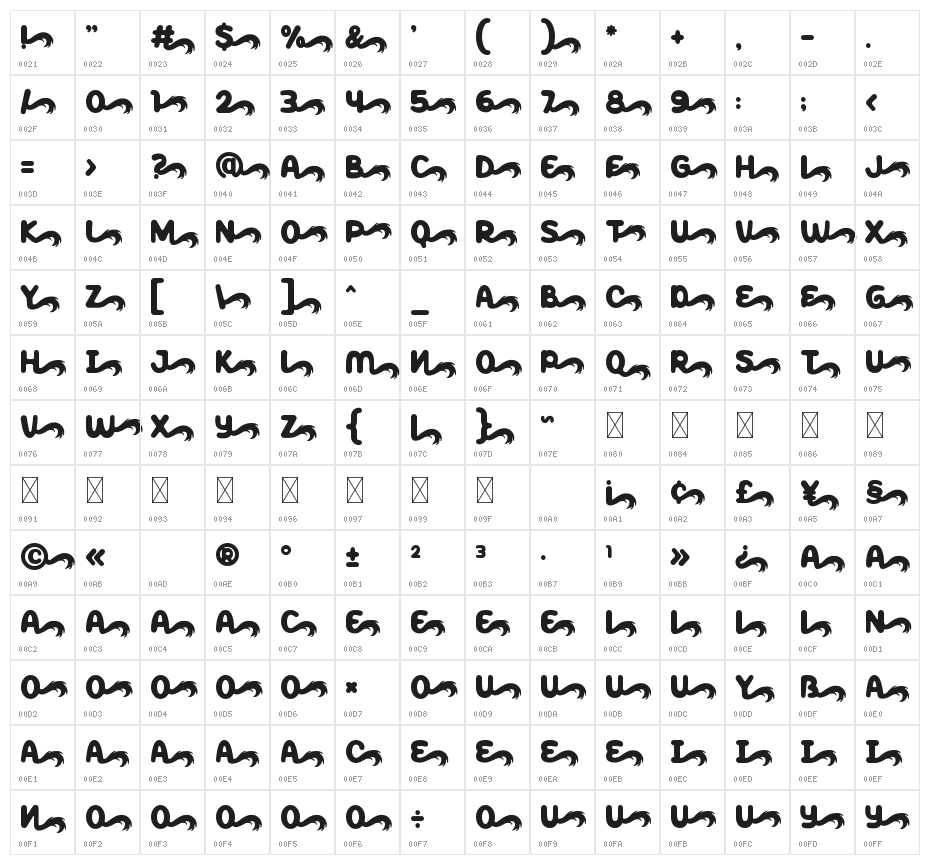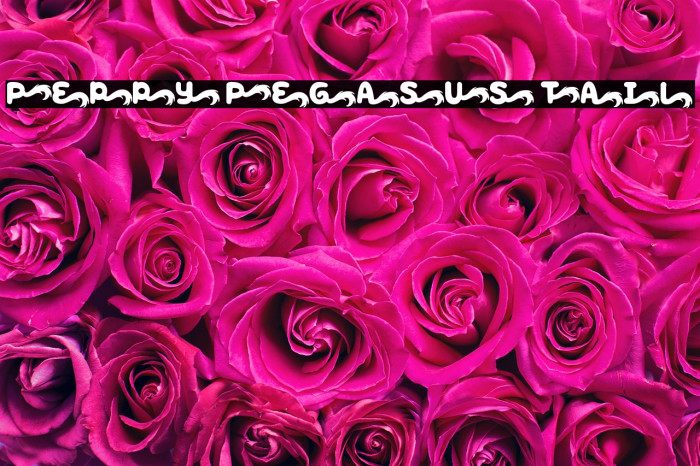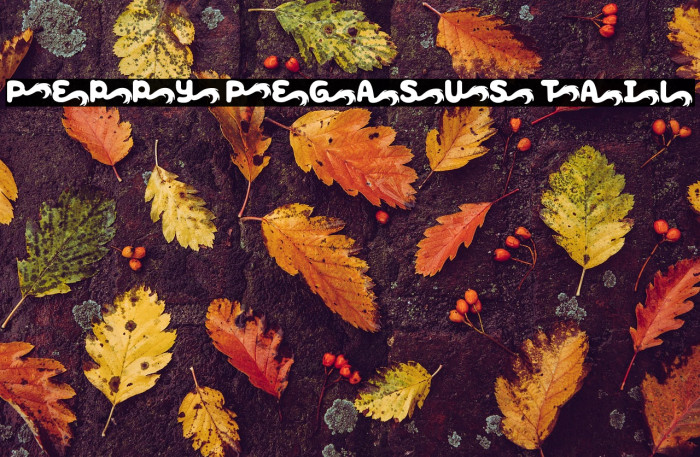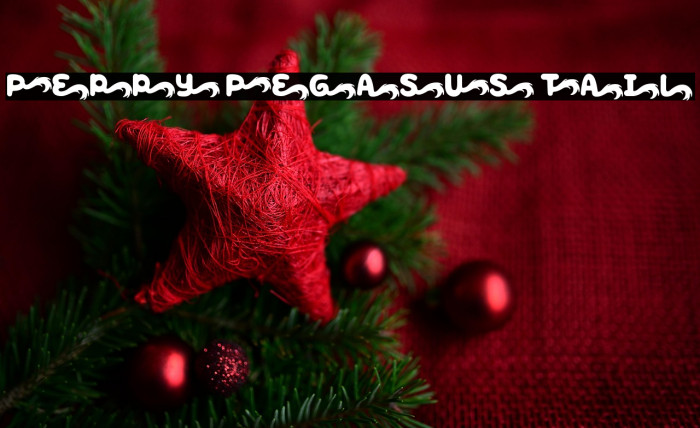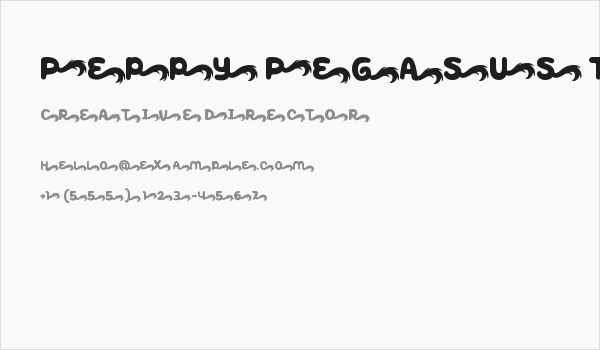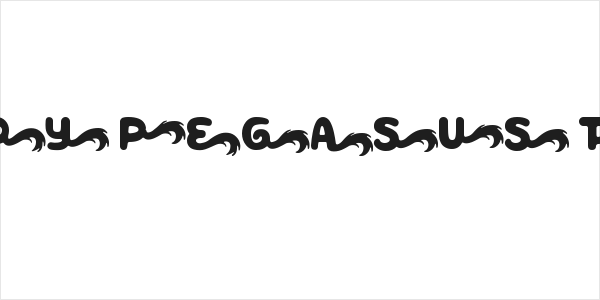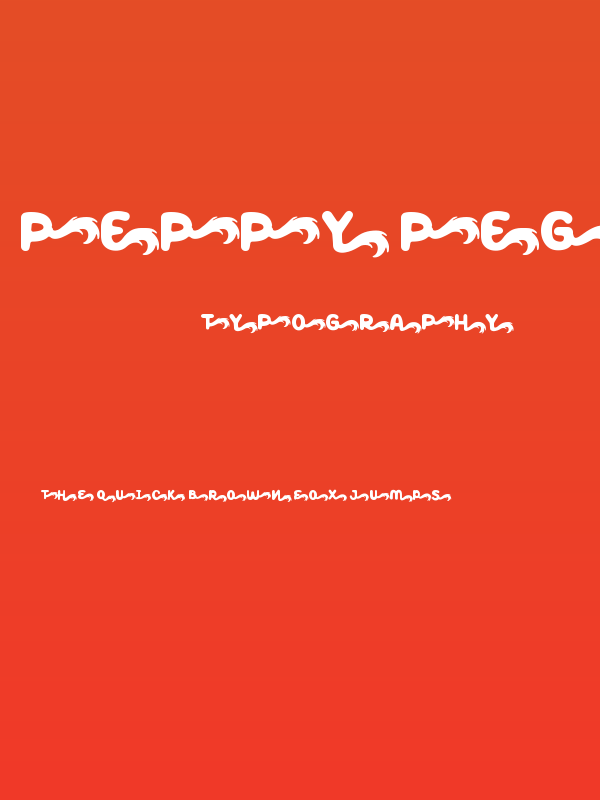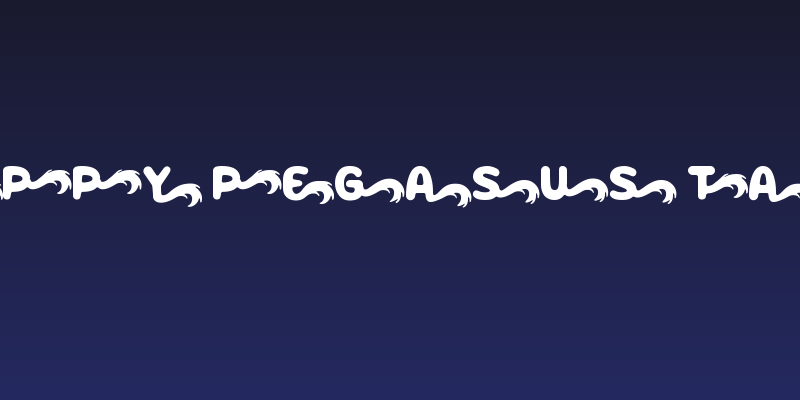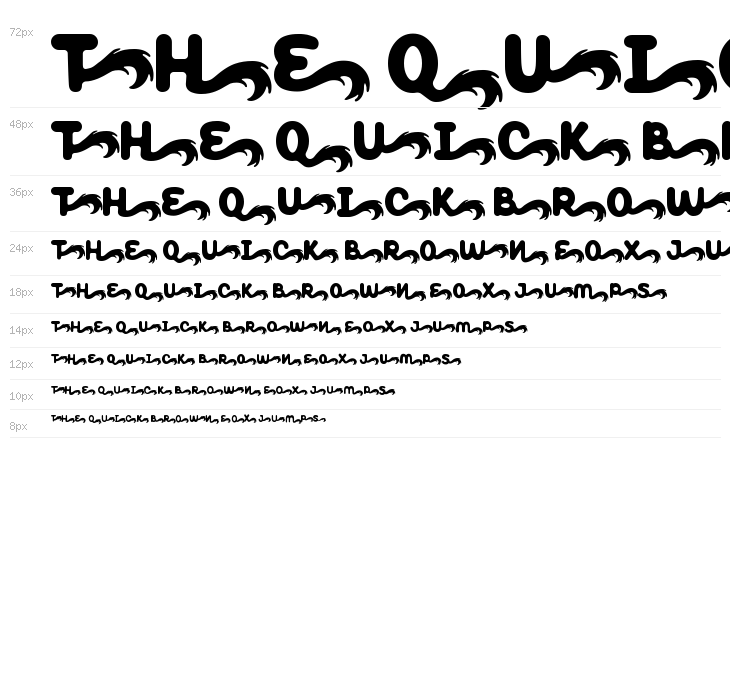
Peppy Pegasus Tail Font
Peppy Pegasus Tail Description
This playful and whimsical font features a unique design where each character is adorned with a tail-like flourish, reminiscent of a pegasus's tail. The bold strokes and decorative elements create a sense of movement and fantasy, making it stand out. The uppercase and lowercase letters maintain a consistent style, with the embellishments adding a touch of elegance and fun. Numbers and special characters are equally stylized, ensuring a cohesive look across all text. The font's distinctive appearance makes it ideal for creative projects that require a touch of magic and imagination.
| Proposed Projects | Ideal for children's book covers, fantasy-themed invitations, playful branding, and decorative posters. |